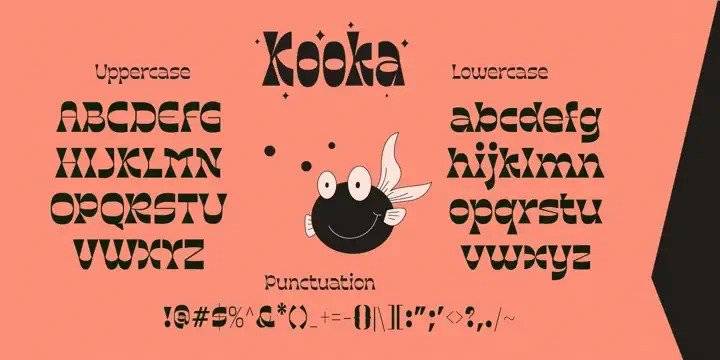
About Kooka Font
Kooka enlivened by awesome retro style, this extraordinary and Cool vintage show family is wonderful to consolidate with any sans serif textual style. In case you’re searching for one-of-a-kind and present-day vintage text styles, Kooka is the correct decision! On account of its one-of-a-kind characters. Kooka incorporates a Variable style just as multilingual help, numbers, and currency symbols. This unique font designed by Kadek Mahardika and published by Creativemedialab.
You can utilize the Kooka font to make fascinating design, covers, shop and store names, and logos.
The textual style Kooka is likewise ideal for marking projects, Homeware Designs, Product bundling – or basically as a snappy book overlay to any foundation picture.